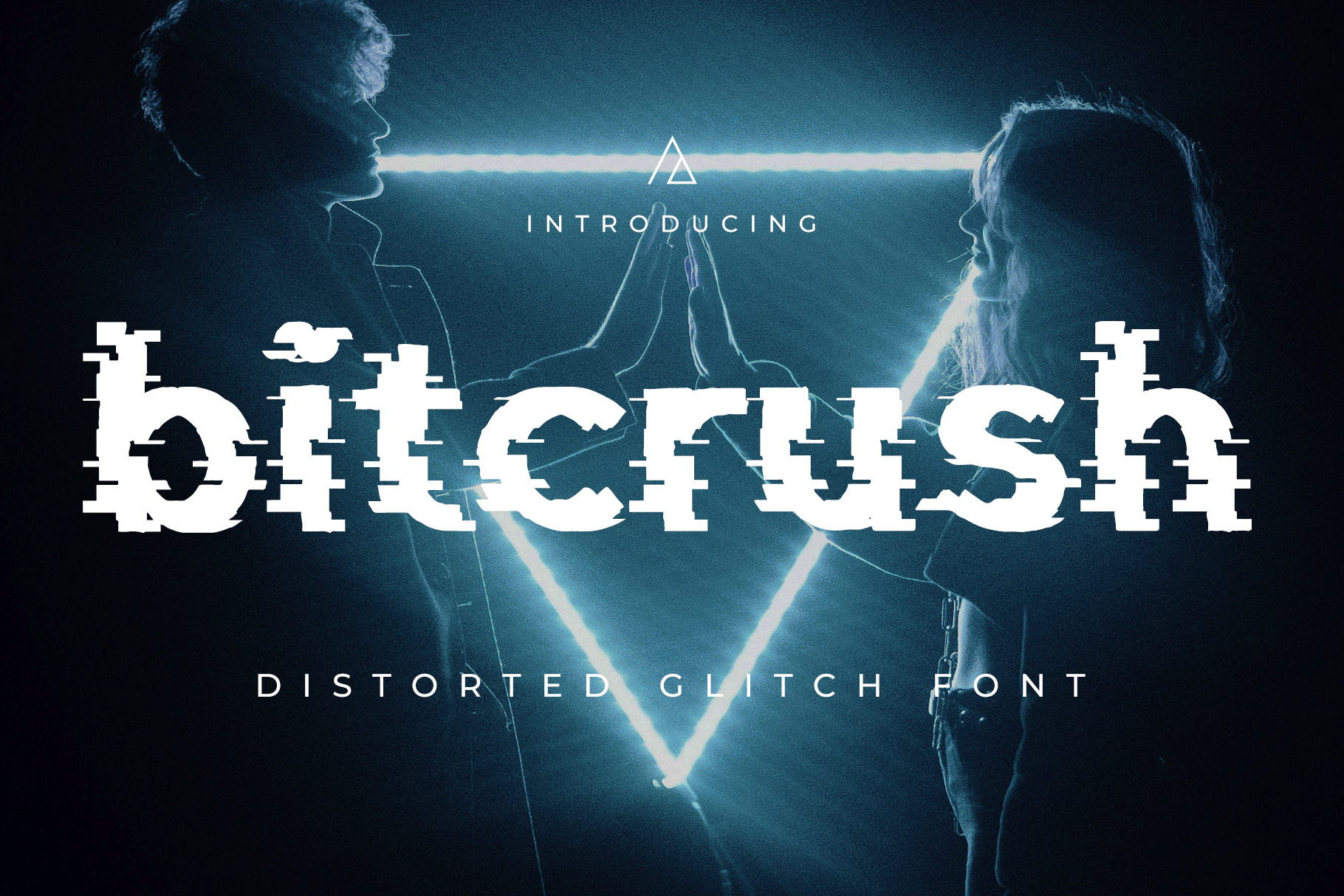
Bitcrush - Distorted Glitch Font
Bitcrush is a premium distorted glitch font inspired by science fiction movies and games. It features all uppercase letters, numbers and common symbols. Each sans serif letter has been individually distorted in stages, using detailed high resolution effects.
- All uppercase letters
- All lowercase letter
- Numbers 1-9
- Most common symbols and punctuation
- European language support